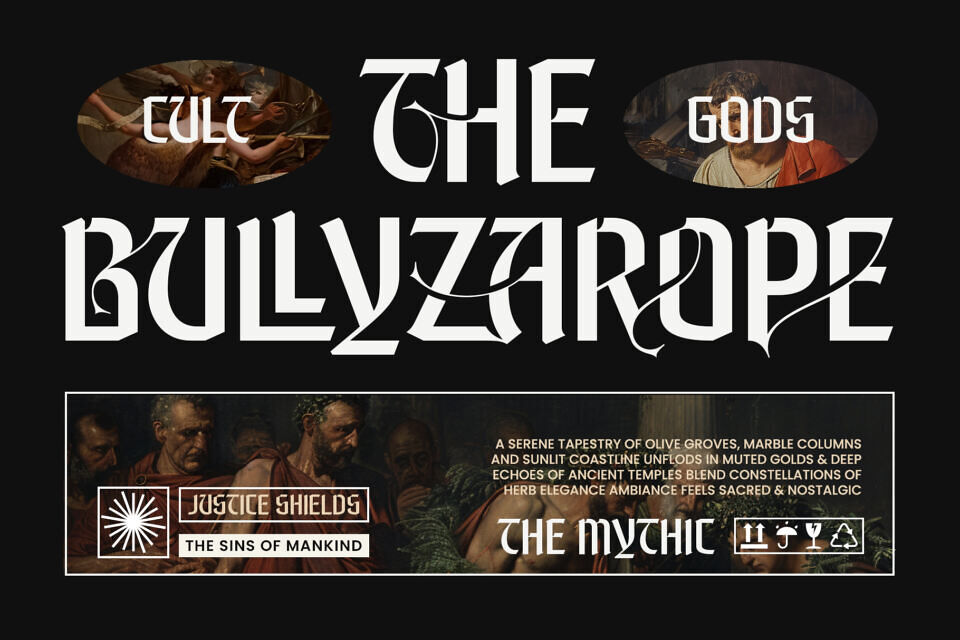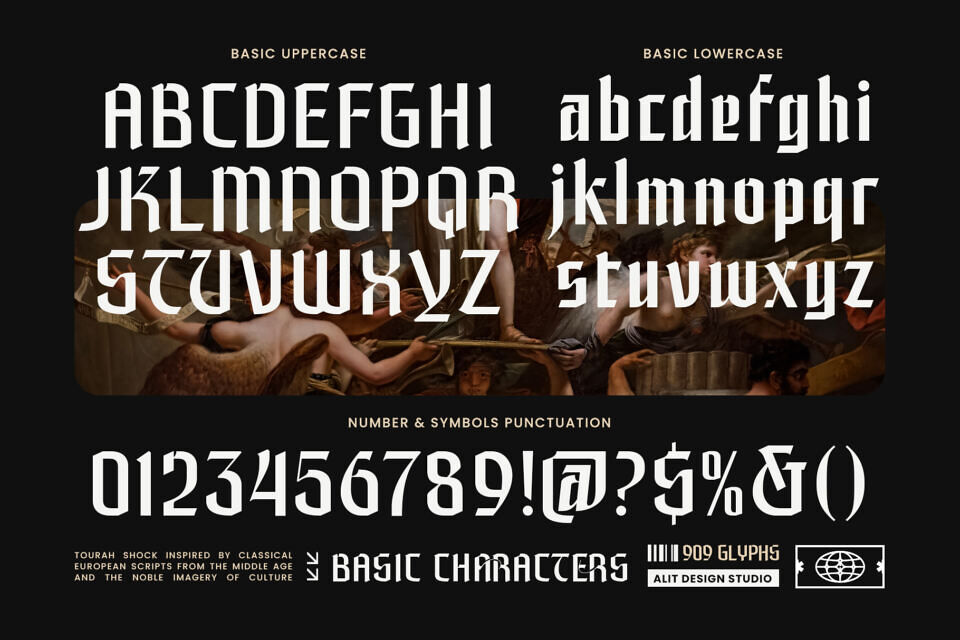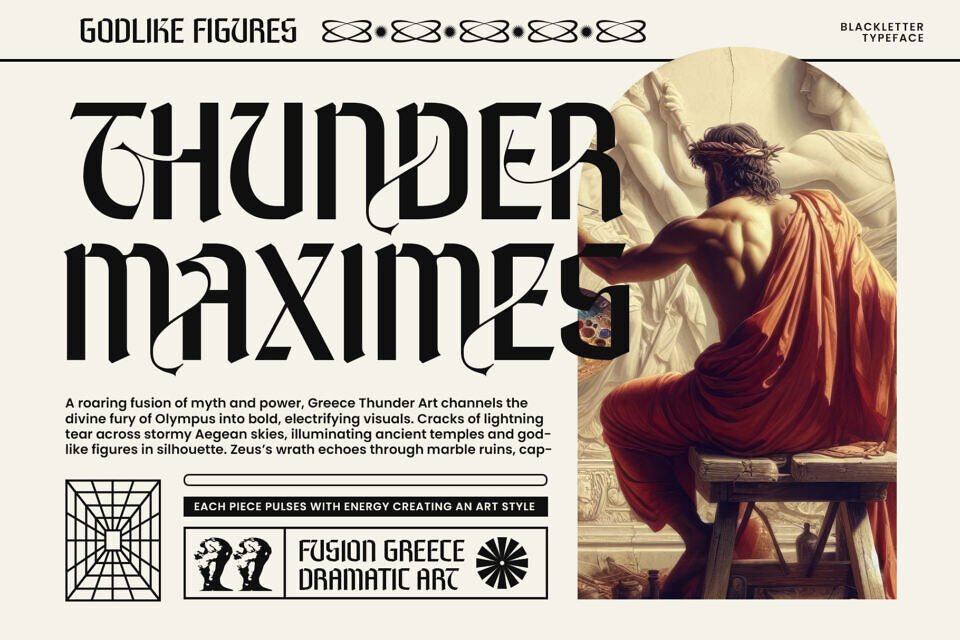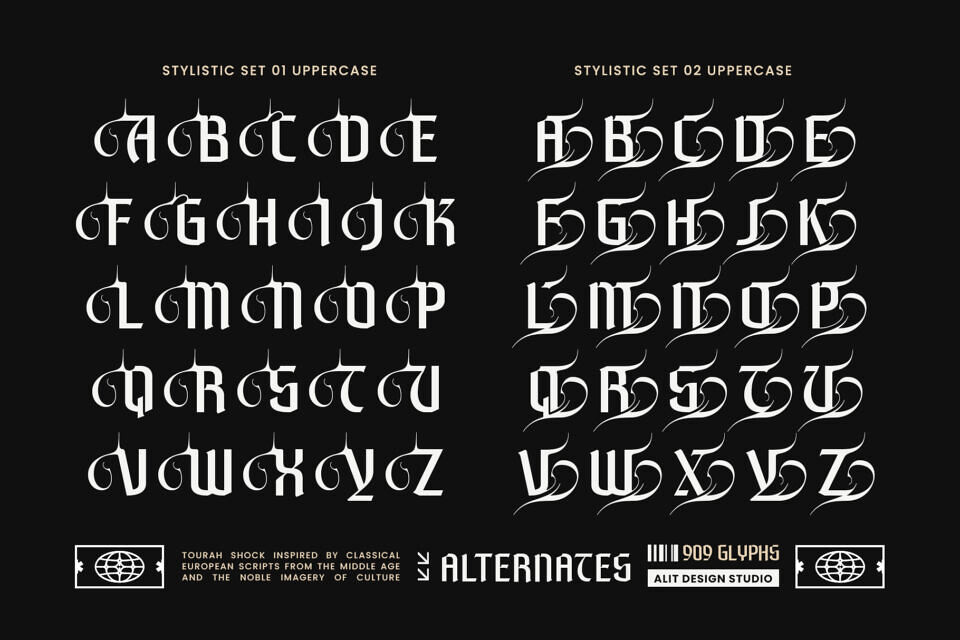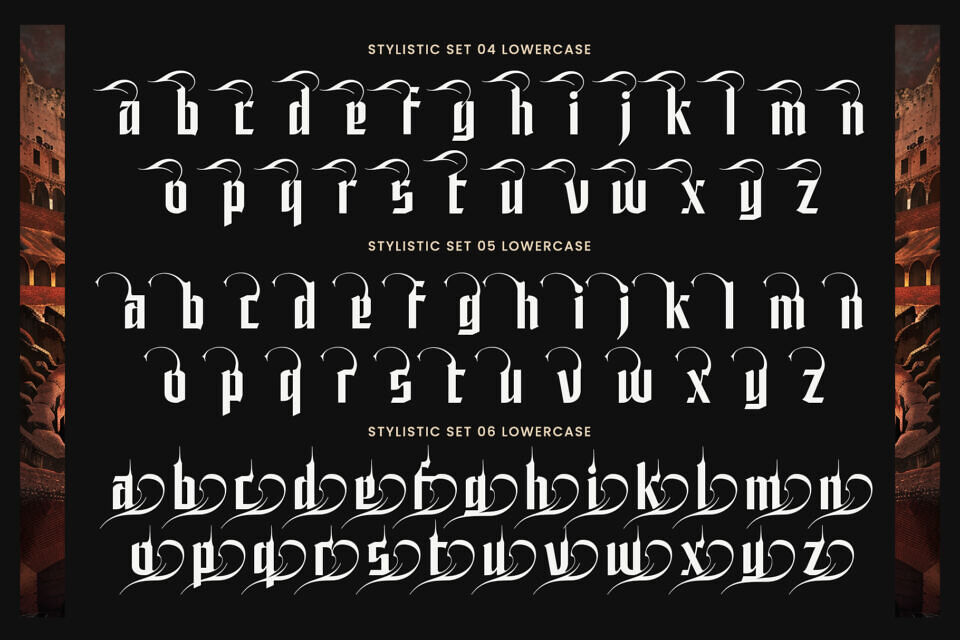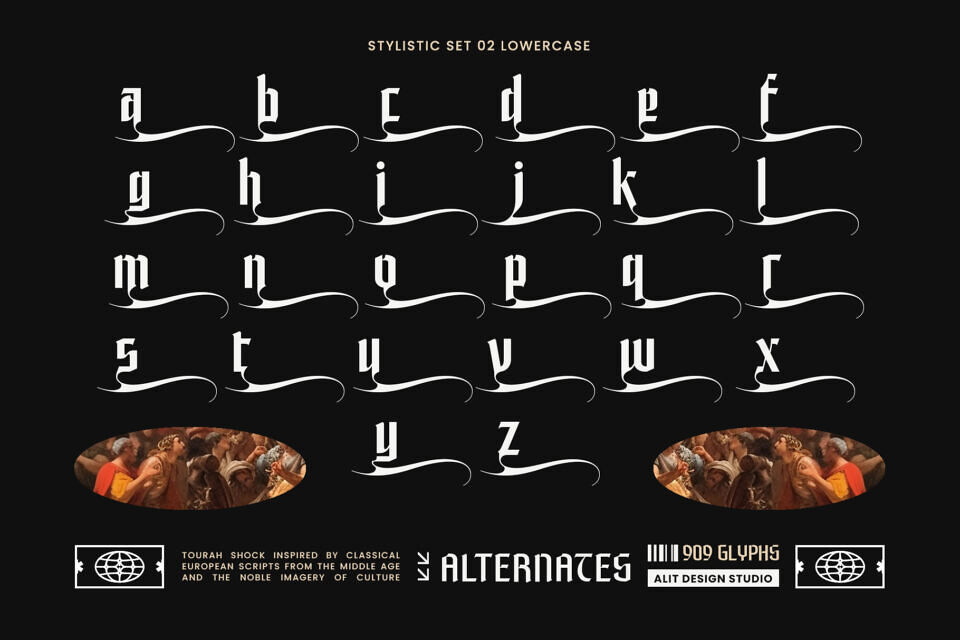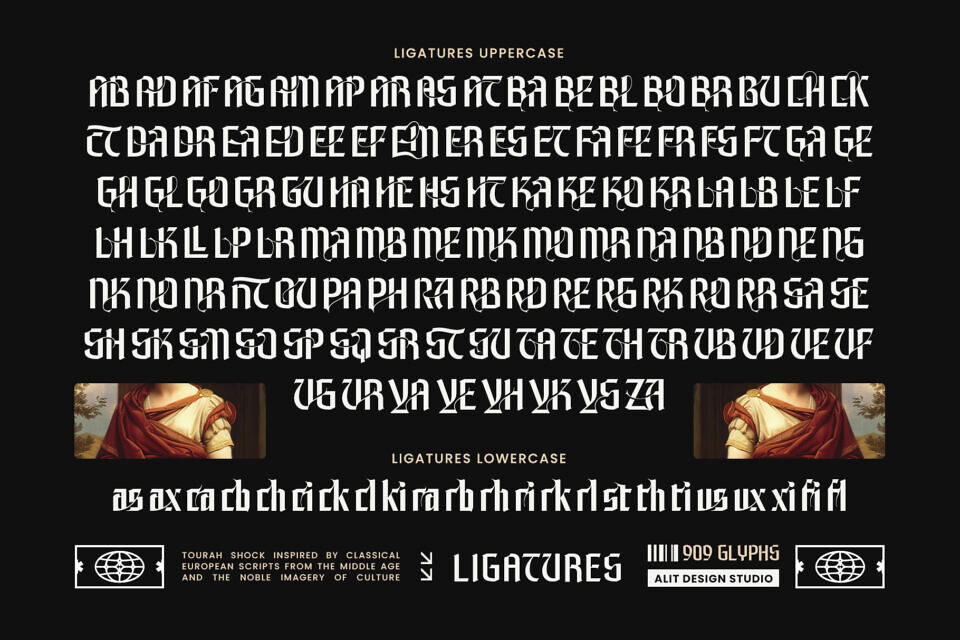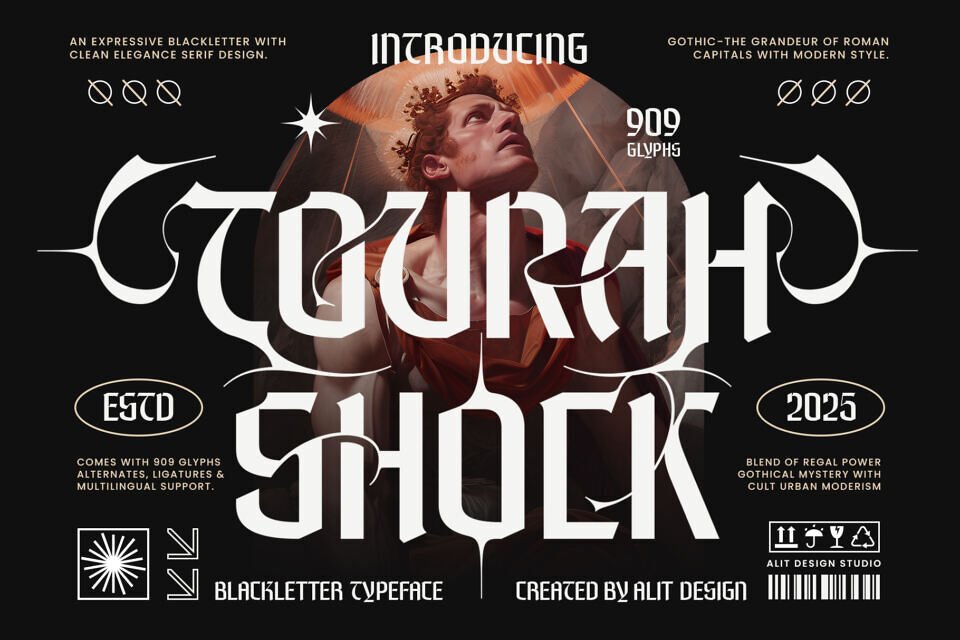
Toerah Shock Font
Step into the bold world of Tourah Shock Typeface – a fearless fusion of blackletter tradition, elegant serif structure, and tribal artistry. Crafted for designers who crave impact, emotion, and edge, Tourah Shock is more than a typeface — it’s a visual force of dark elegance and structured defiance.
Tourah Shock was born from the tension between ancient and future, between classical grandeur and contemporary rebellion. It draws deep inspiration from Gothic Roman capitals, urban cult symbolism, and ceremonial tribal aesthetics, combining them into a modern typographic weapon.
The letterforms carry sharp terminals, high contrast strokes, and ornamental extensions that feel both ceremonial and futuristic. Accents and alternates curve like ancient sigils, giving each word an otherworldly gravitas, perfect for cinematic, fashion, or music-centric design.